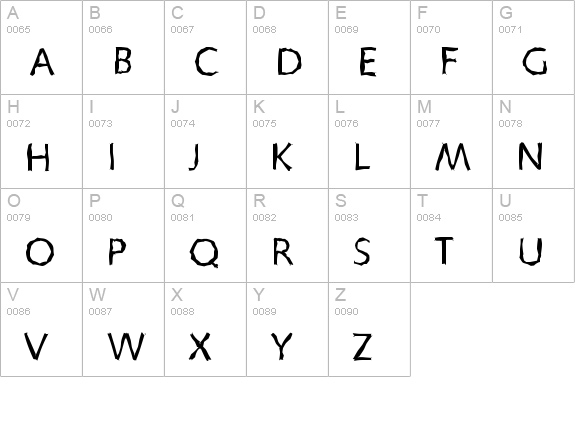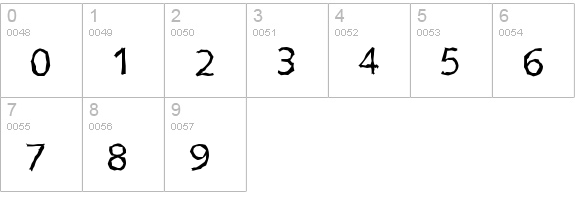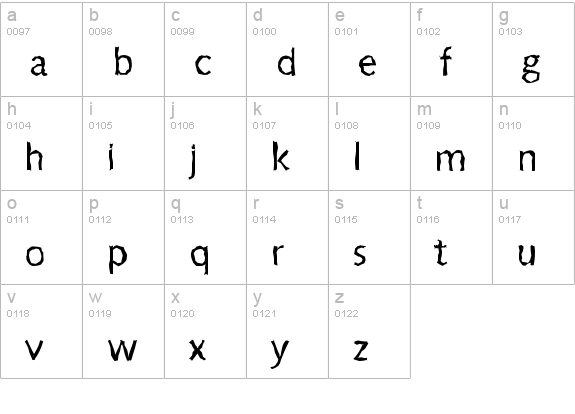
SaxonyRandom-Regular Font Details
SaxonyRandom-Regular is the standard, neutral variant in the SaxonyRandom typeface family \xE2\x80\x94 well suited to general body text, paragraphs, and standard typographic work.
SaxonyRandom-Regular is a unique and stylish font that is perfect for adding a touch of creativity to your projects. This font features a random and playful design that will make your text stand out. With its modern and eye-catching appearance, SaxonyRandom-Regular is ideal for a wide range of design projects, from branding to social media graphics. What's even better is that SaxonyRandom-Regular is completely free to download at FontsMarket.com. This means you can easily access this font and use it in your projects without any cost. Don't miss out on the opportunity to enhance your designs with this striking and versatile font. Download SaxonyRandom-Regular today and let your creativity shine!